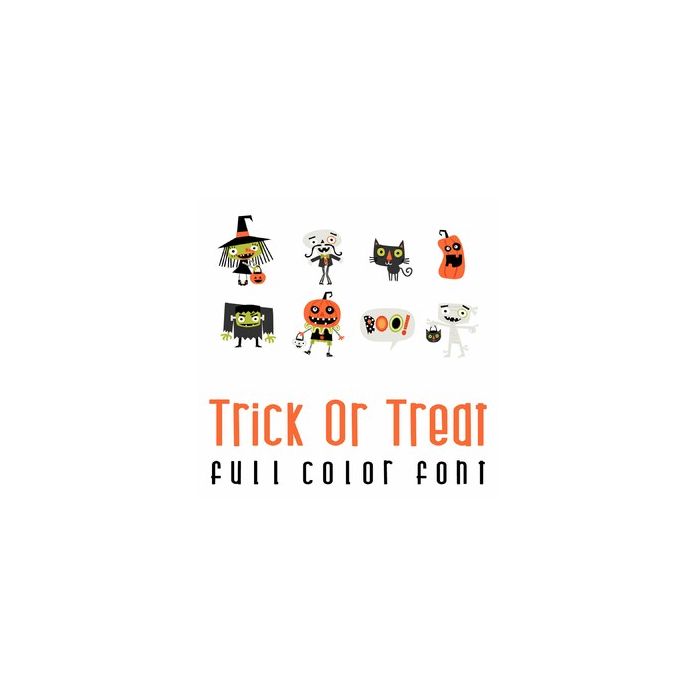
This adorable full-color doodlebat font features 26 adodrable Halloween characters. Perfect for cards, crafts, gifts, decor, scrapbook pages, planner stickers, and more!